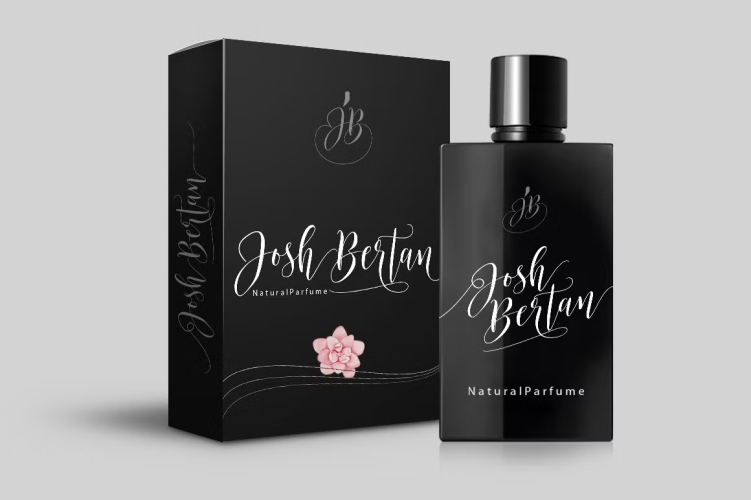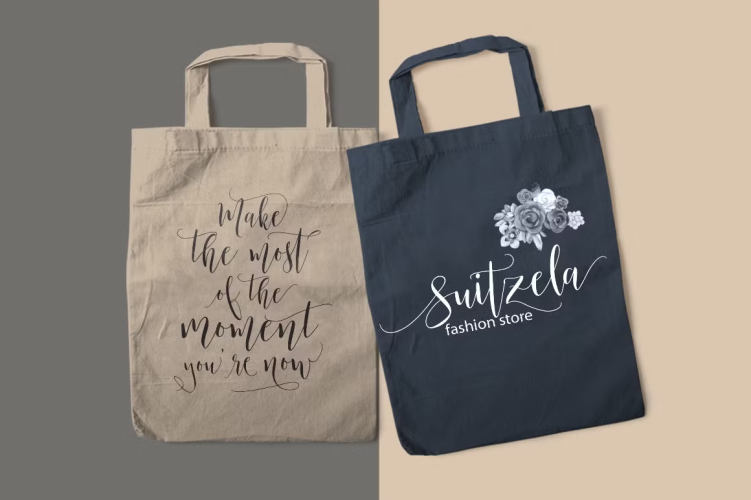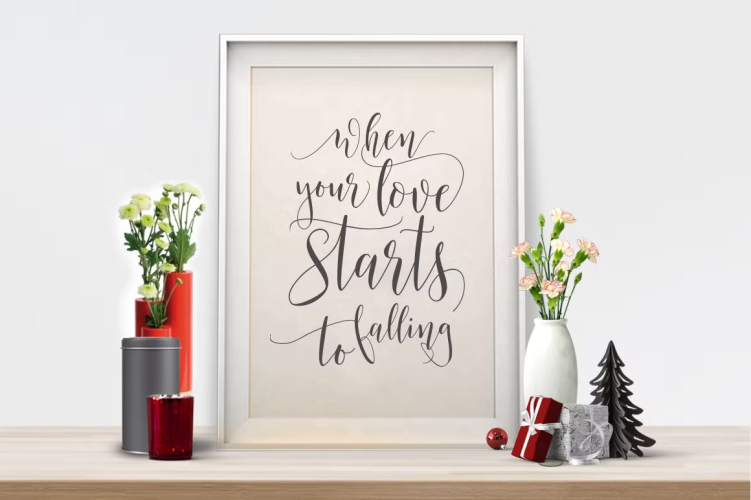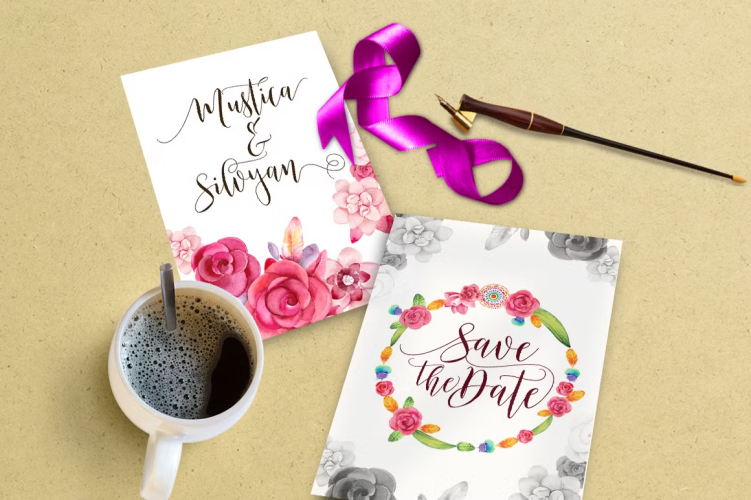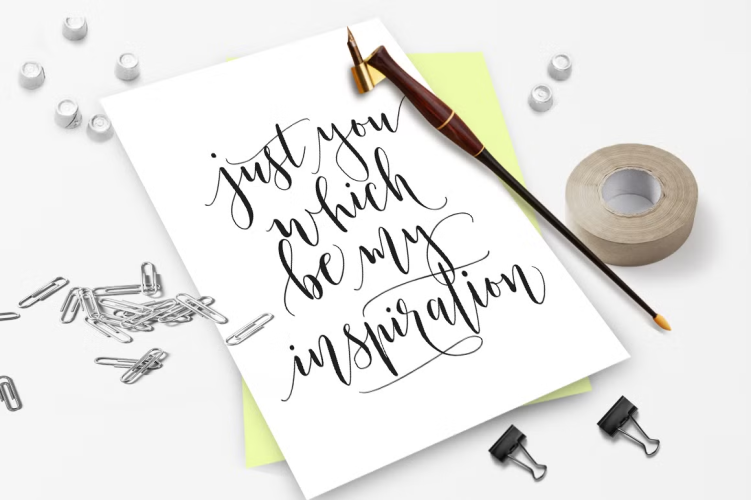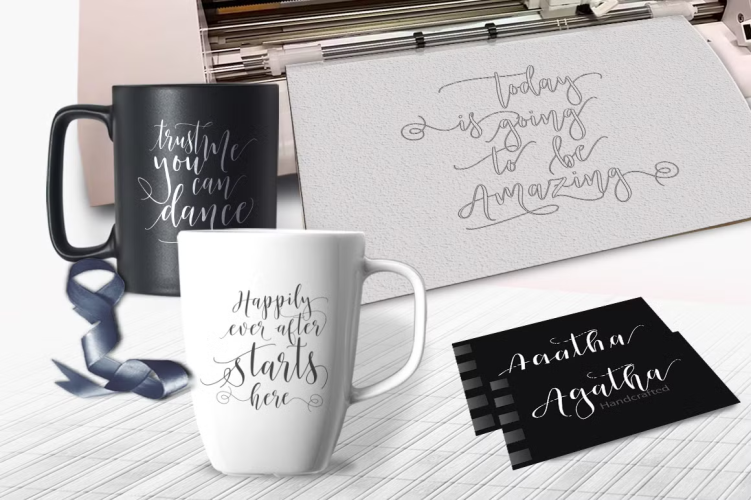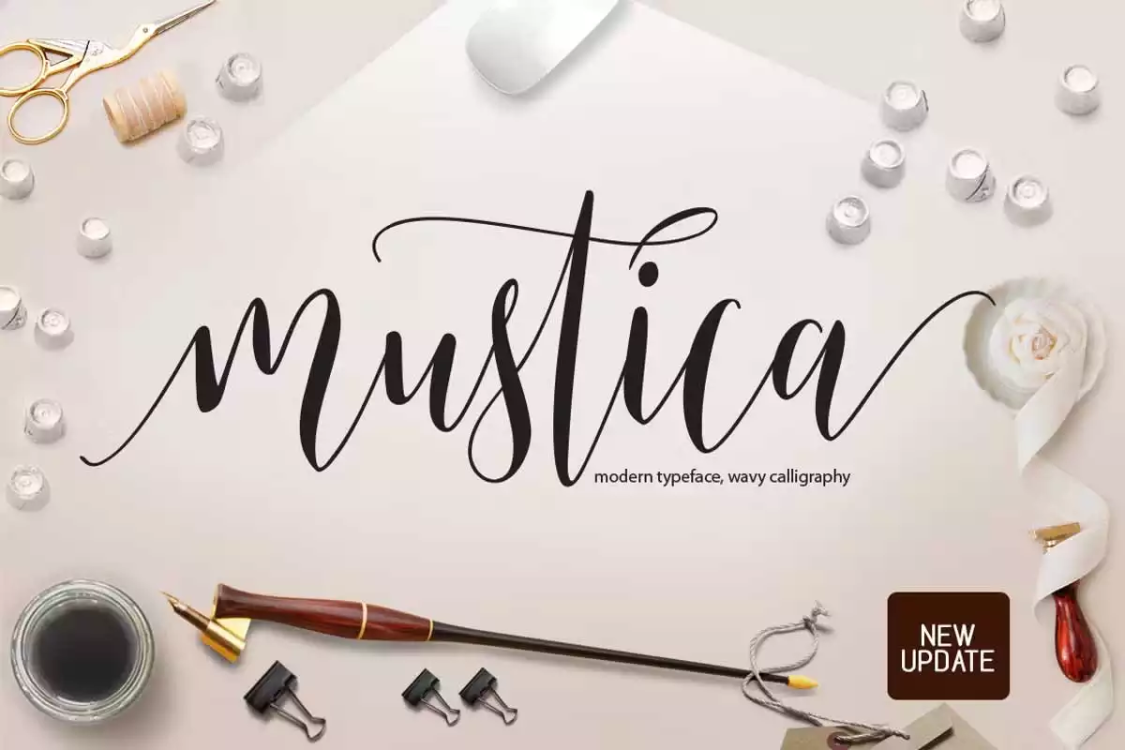
Mustica Font
Mustica Script is a wavy, modern, and classic calligraphy, so soft is perfect for your next design, such as logos, printed quotes, invitations, cards, product packaging,…
Mustica Script is a wavy, modern, and classic calligraphy, so soft is perfect for your next design, such as logos, printed quotes, invitations, cards, product packaging, headers, and anything else about your imagination.
Mustica Script allows you to create custom dynamic text. You can access it by turning on Stylistic Alternates, Swash, Stylistic Set, Initial, and ligatures in Photoshop, Adobe Illustrator, Adobe InDesign, or through a panel of glyphs such as Adobe Illustrator or Photoshop CC. Let’s switch from the regular character into a character alternative to get the text with the layout of your dreams. Mustica Script also includes glyphs, punctuation, numbers, and multilingual.
Mustica Script features 670 glyphs and has given PUA unicode (specially coded fonts) with many alternate characters. Any crafter or designer can fully access the pack without requiring extra design software, COMPATIBLE WITH SILHOUETTE & CRICUT DESIGN SPACE.
The Features of this font is: Contextual Alternates, standard ligatures, Stylistic Alternates, Stylistic Sets, initial.
Where Mustica Font works best
Mustica Font brings a personal, handwritten warmth to invitations, menus and place cards.
Craft brands — coffee, cosmetics, bakery — use scripts like Mustica Font for signature-style logos and labels.
Pair Mustica Font with a plain sans for quotes, stories and Pinterest pins that feel handmade.
What is Mustica Font good for?
Mustica Font is a Script And Handwritten typeface tagged Branding, Calligraphy, Classic, Modern. It works well for headlines, logos, posters, social media graphics and branding projects that need a distinctive script and handwritten look.